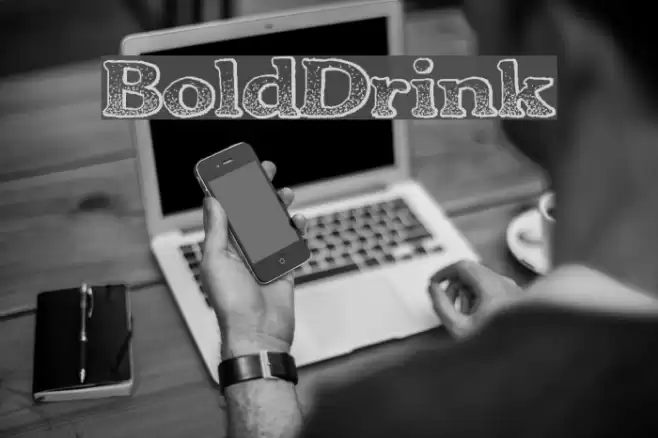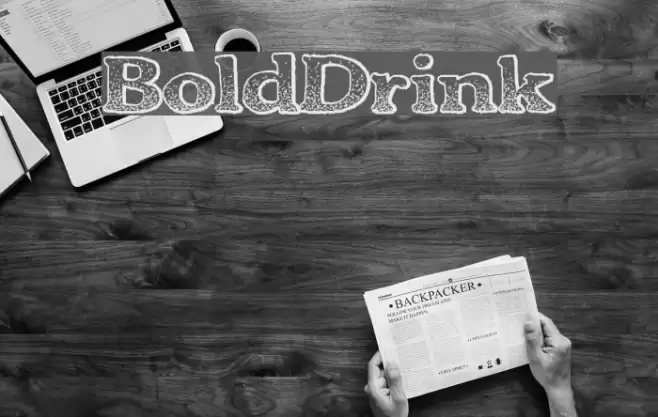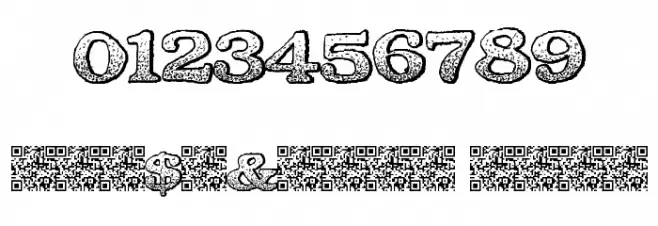
BoldDrink Font
BoldDrink Description
This font features a bold and textured style that gives it a unique, handcrafted appearance. The letters are outlined with a rough, stippled effect, adding depth and character. The uppercase and lowercase letters maintain consistent proportions, while the numbers and special characters follow the same design aesthetic. This font's distinctive look makes it stand out, ideal for projects that require a touch of creativity and individuality. The textured effect is reminiscent of vintage printing techniques, adding a nostalgic feel to the design.
A bold, textured font with a handcrafted, vintage appearance from Distorted Eroded fonts.
- Proposed Projects: Ideal for posters, branding, packaging, and any design requiring a bold, artistic touch.
- Overall Style: Vintage, Decorative